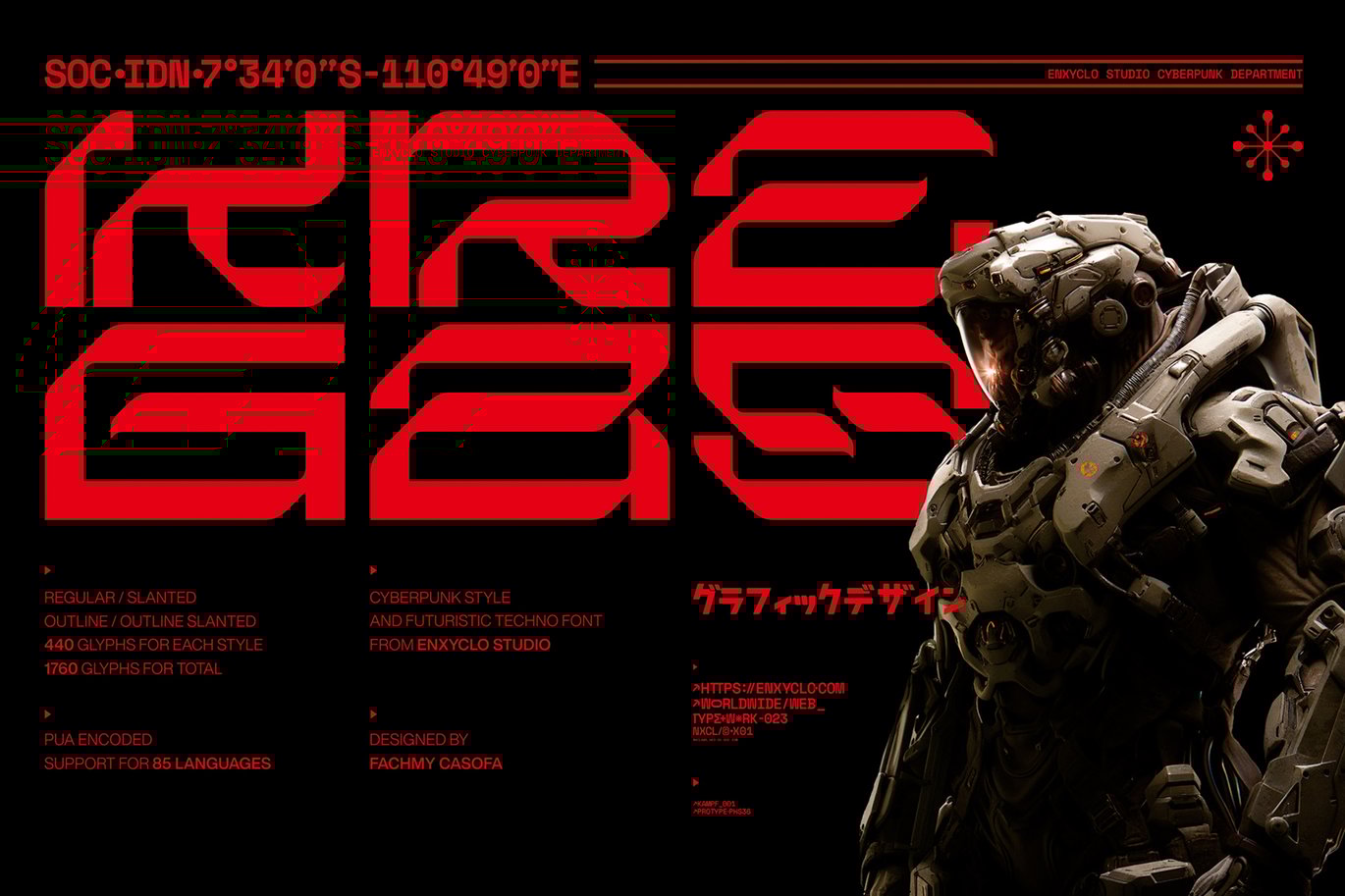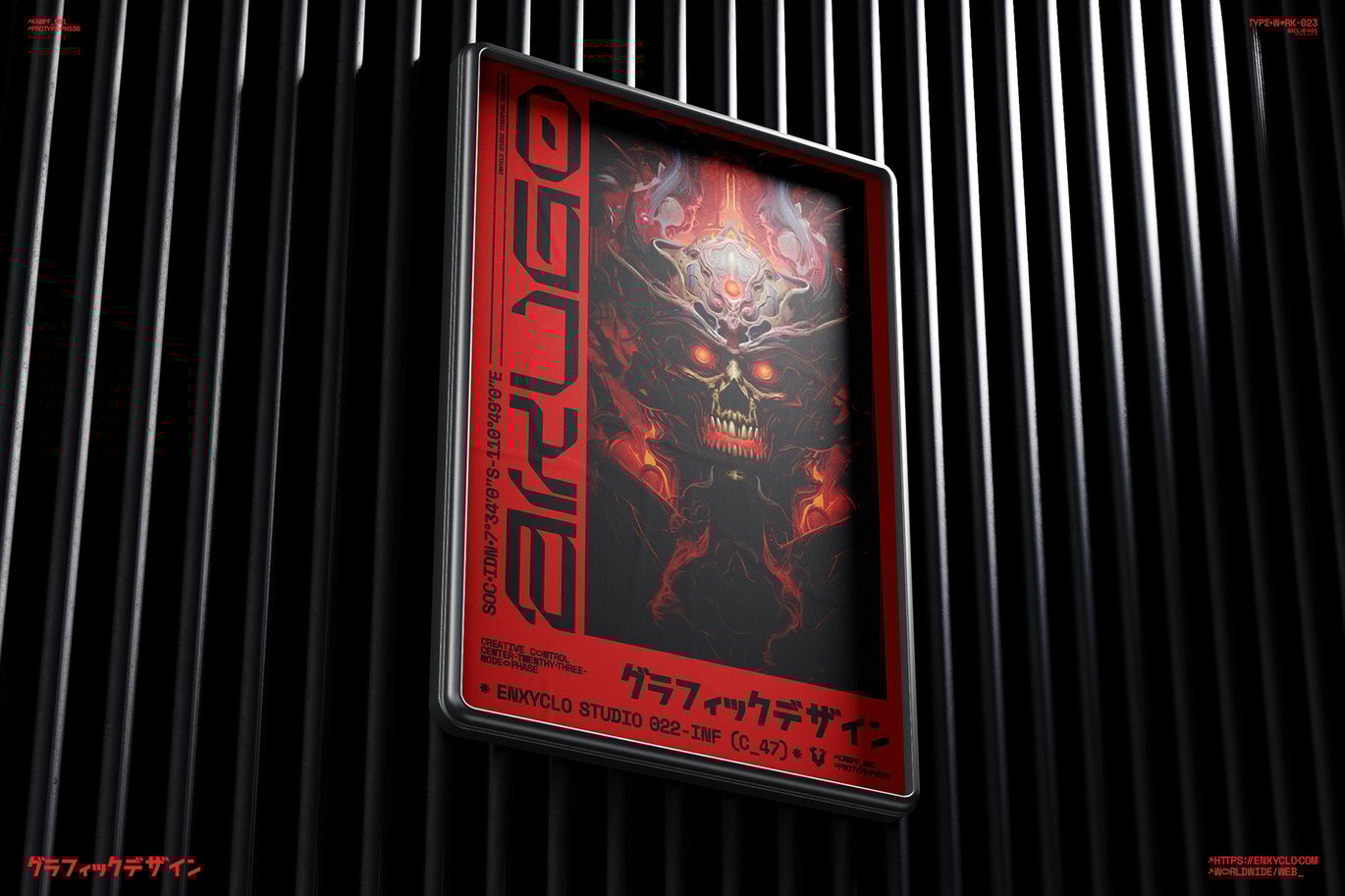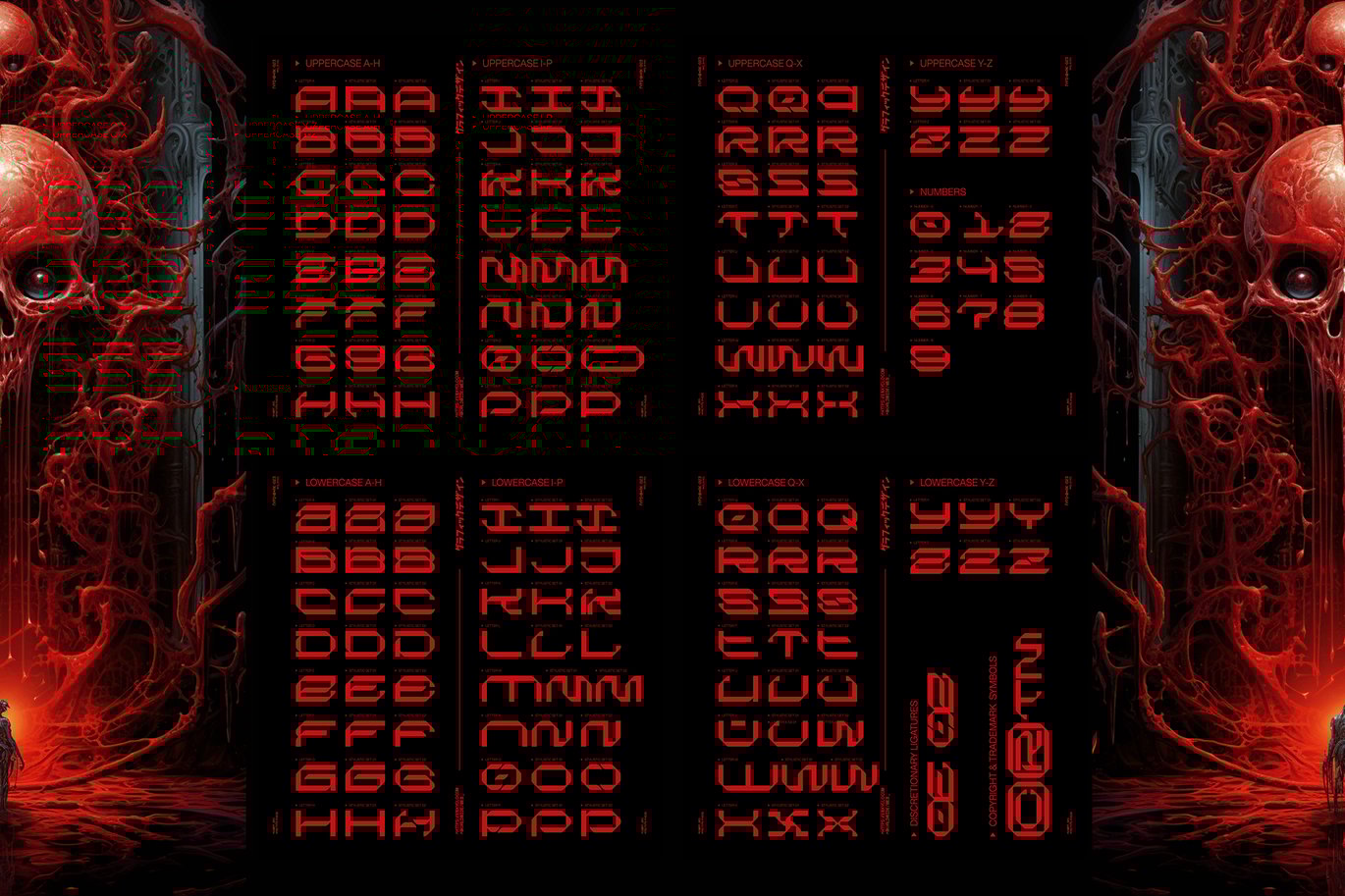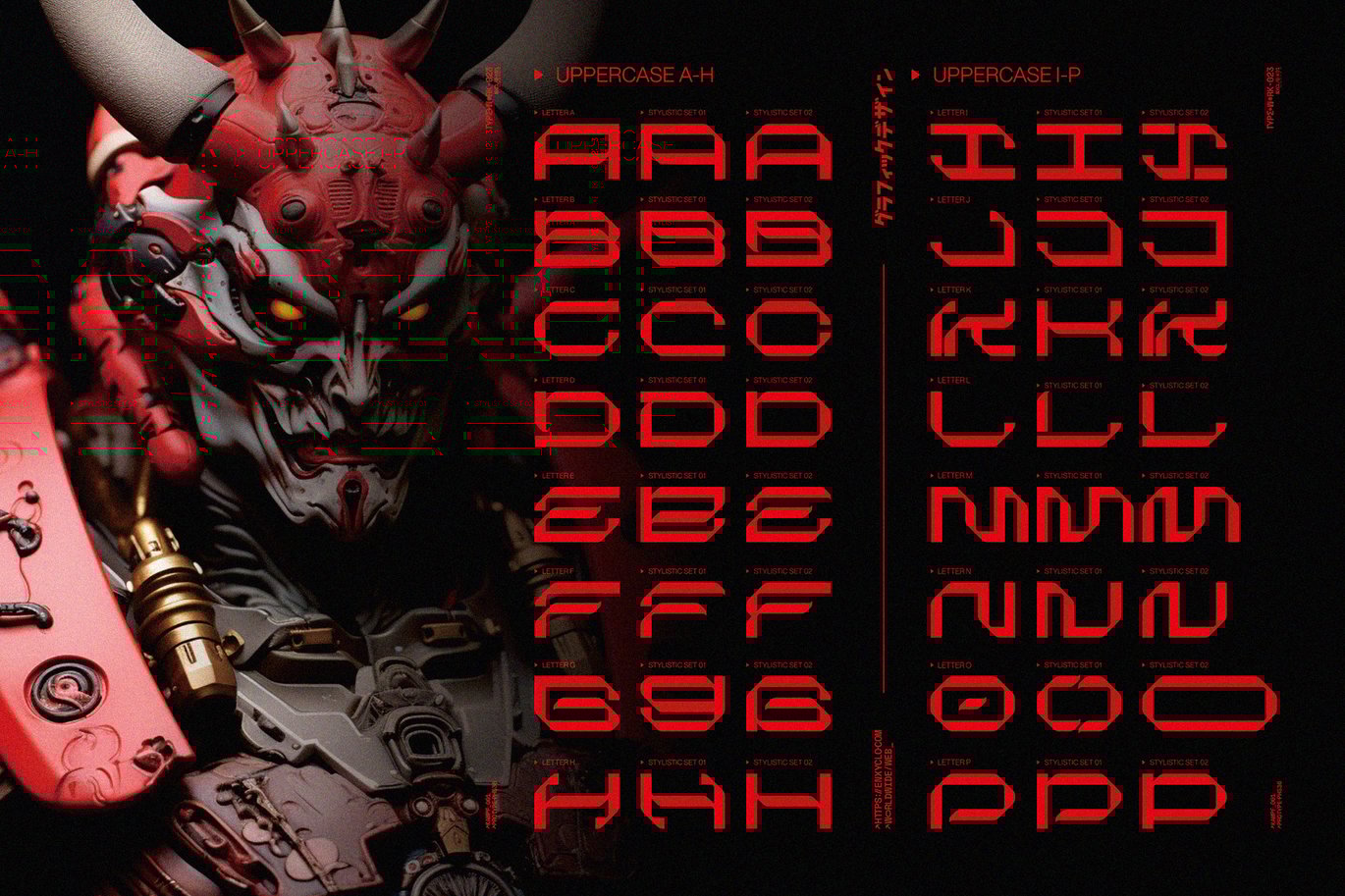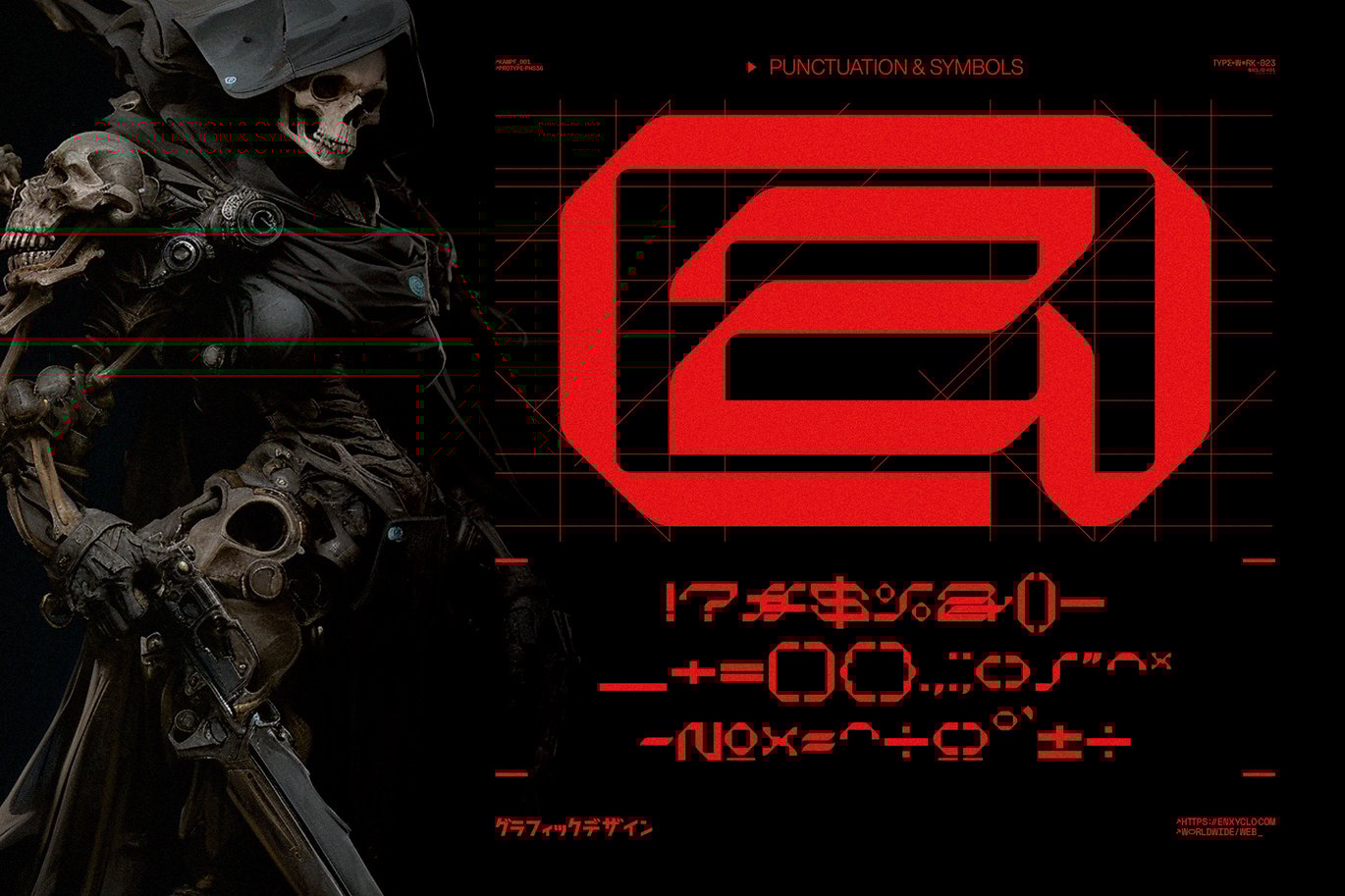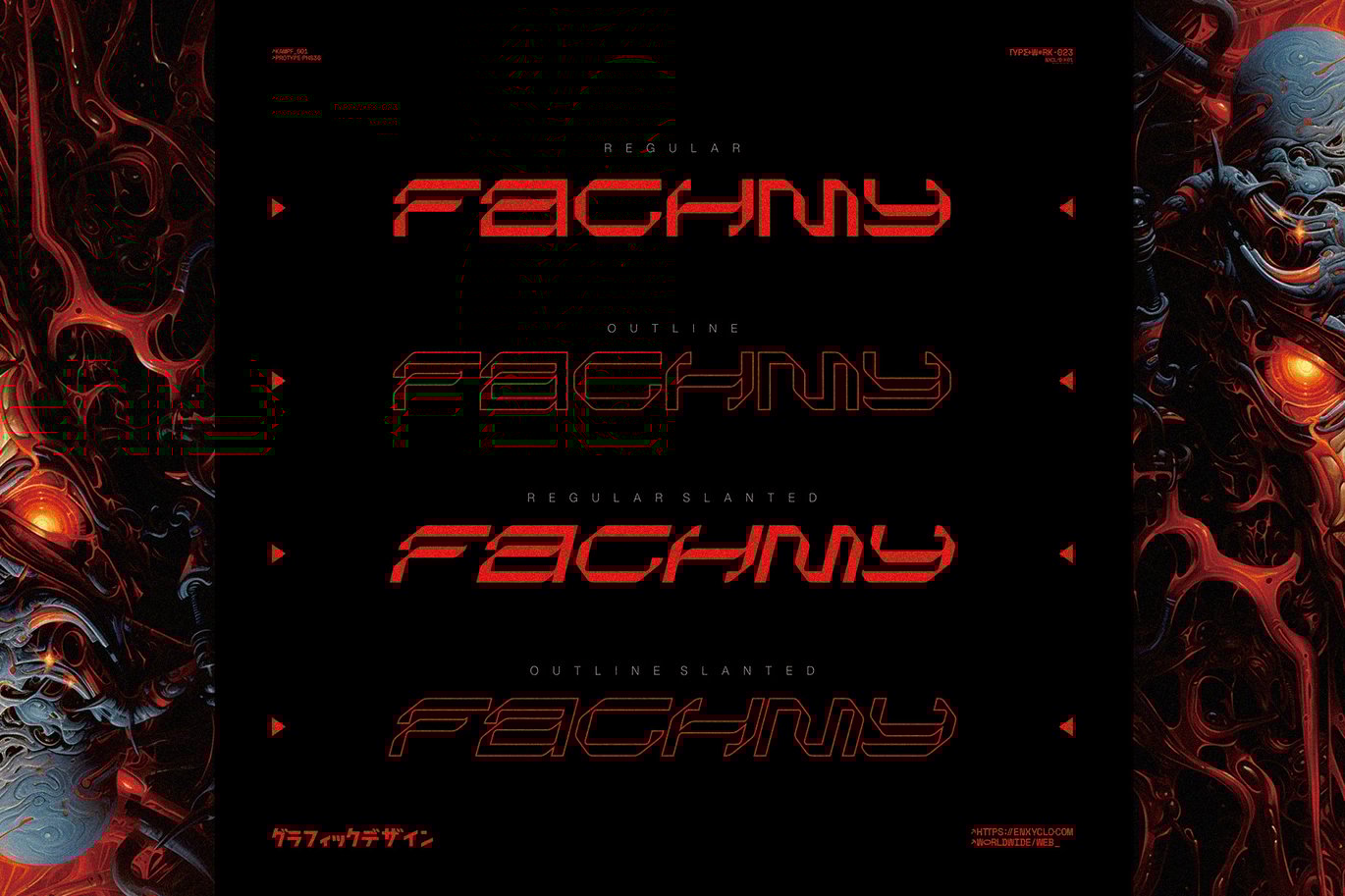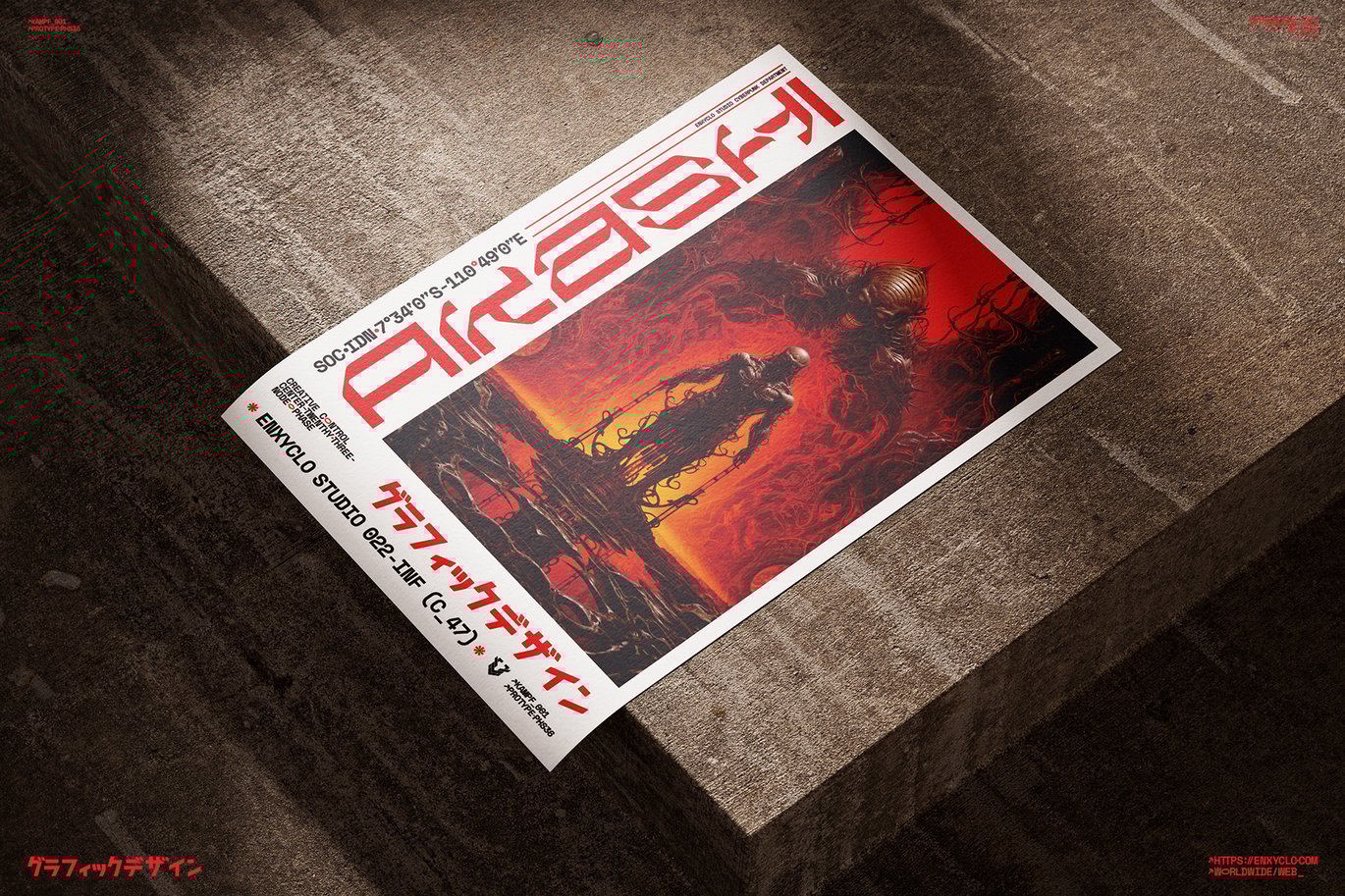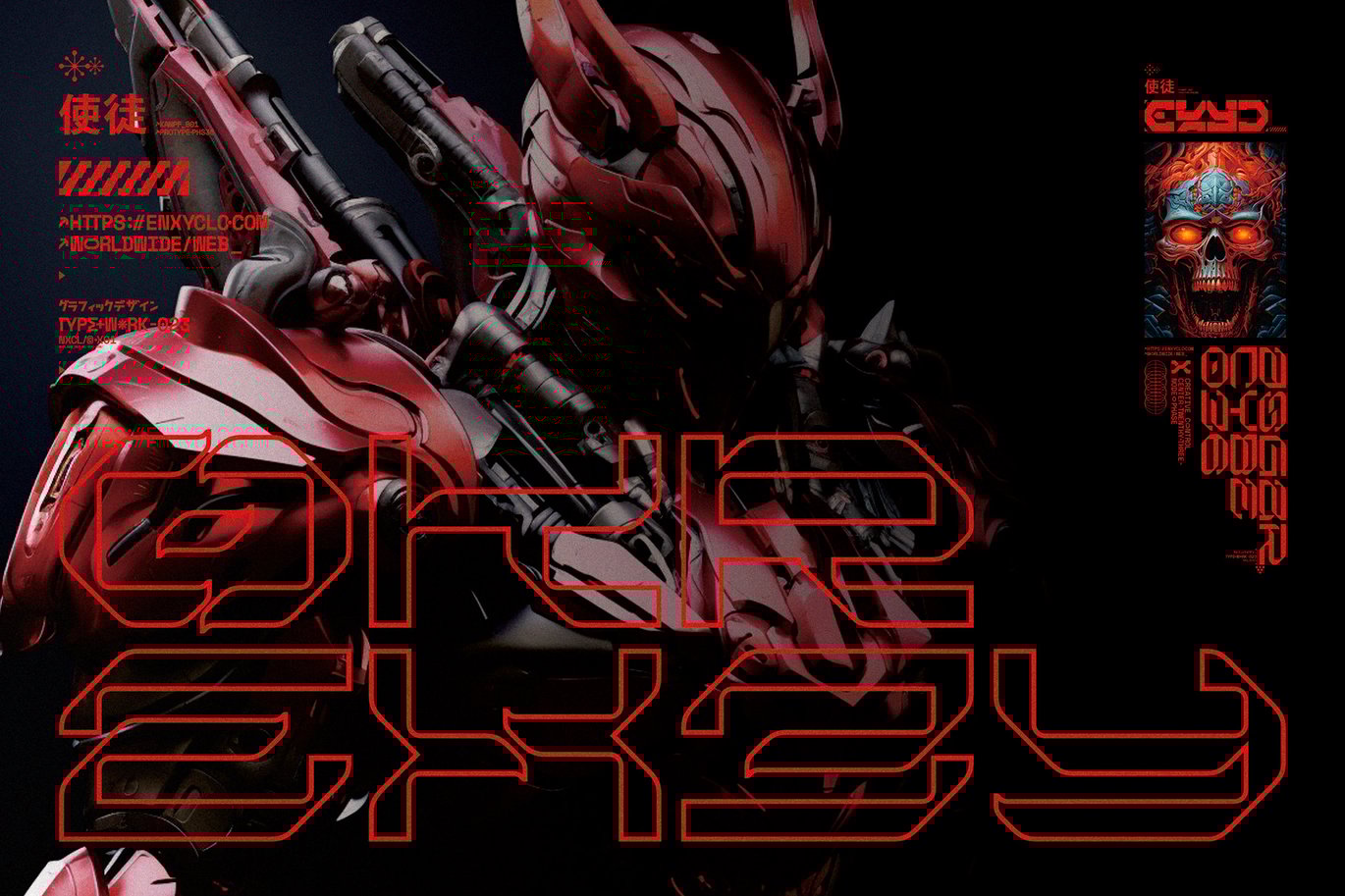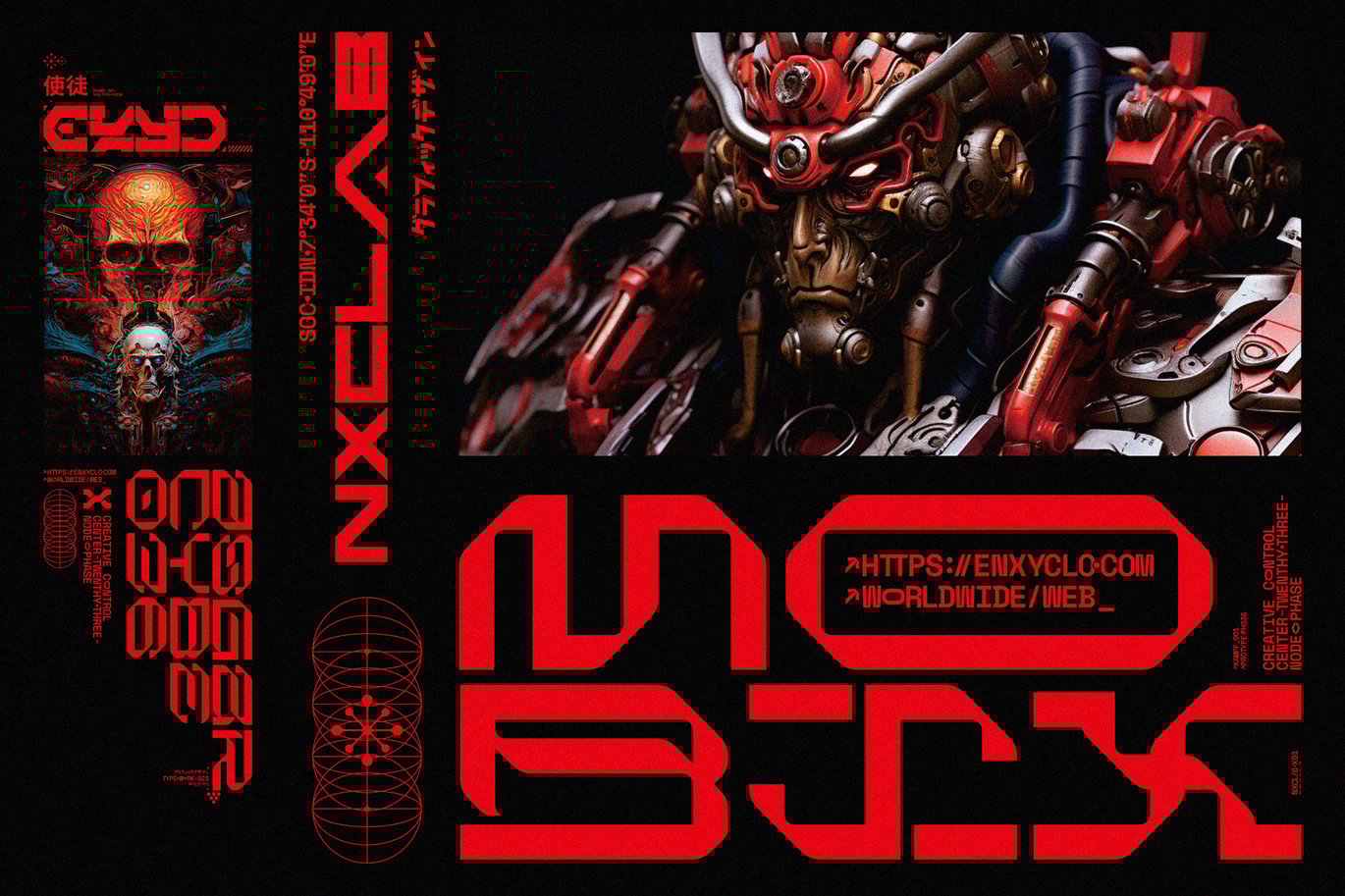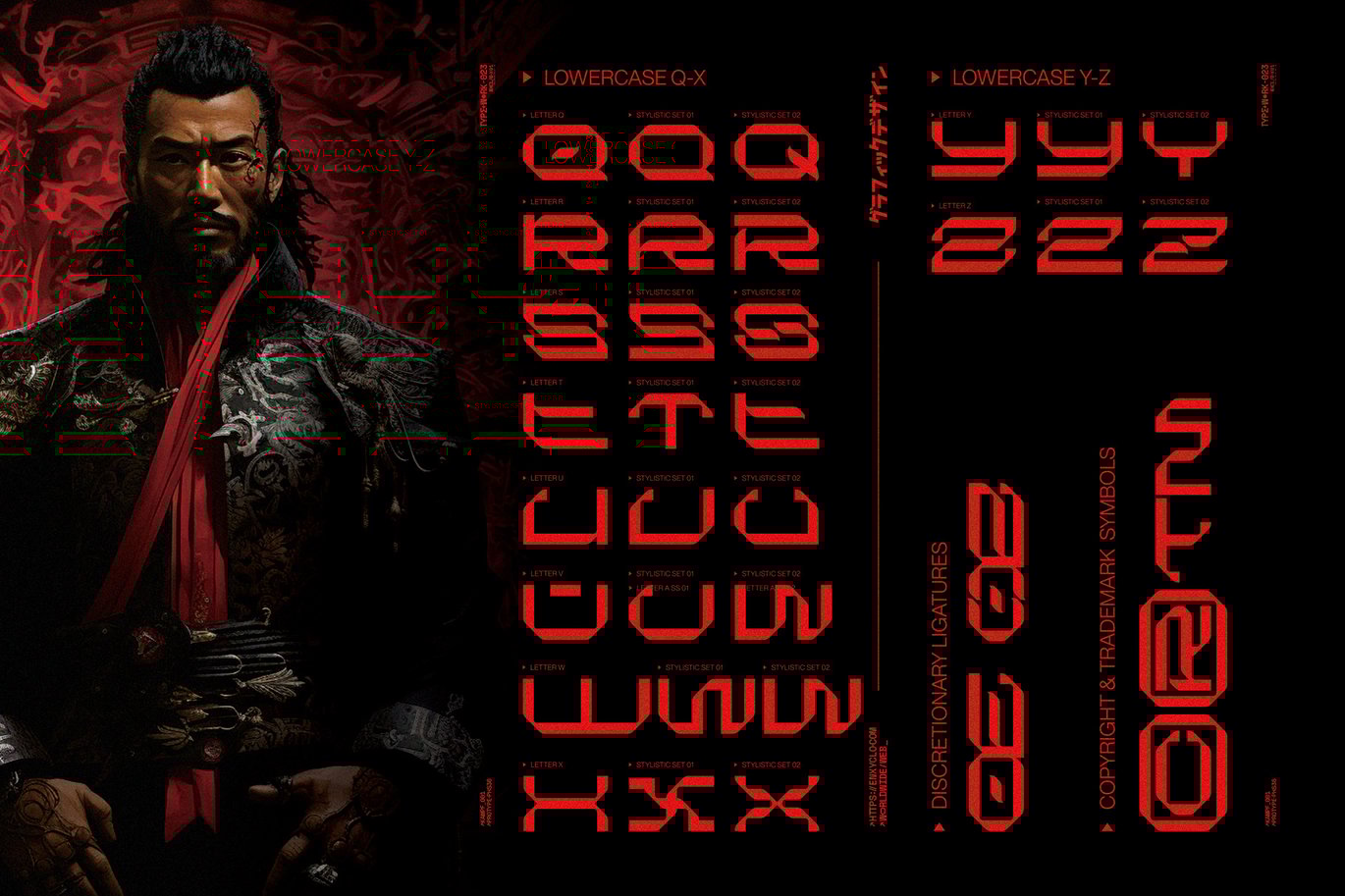
NCL Kregas – Cyberpunk Futuristic Techno Font
NCL KREGAS is not your ordinary font; it’s a cyberpunk futuristic techno mecha font with 4 styles (Regular, Slanted, Outline, Outline Slanted) that takes your creativity to the next level. Its futuristic aesthetics bring a whole new dimension to your designs, making them stand out. Whether you’re working on a website, poster, logo, or any other project, this font adds that extra touch of innovation and sophistication.
- 4 Styles: Regular, Slanted, Outline, Outline Slanted
- Contains 440 Glyphs for Each Style and 1760 Glyphs for Total
- Numeral, Punctuation & Symbols
- Stylistic Set 1 & Stylistic Set 2